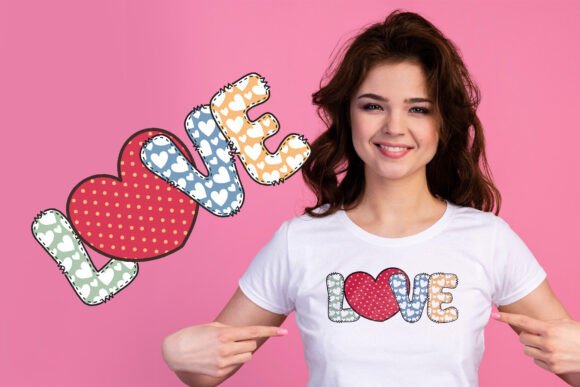
Fox Nice Font
Fox Nice is a delightful and playful font adorned with a charming heart pattern, perfect for adding a touch of sweetness to any project. Available in OTF, TTF, SVG, and PNG formats, this font offers four lovely pastel colors to suit all your creative needs. Whether you’re designing Valentine’s Day cards, wedding invitations, romantic quotes, Instagram posts, love letters, gift tags, or personalized stationery, Fox Nice helps you infuse every creation with love and warmth. As a bonus, this set includes 20 adorable Valentine-themed doodles in matching SVG and PNG formats, making it the perfect choice for spreading love in style.OpenType full-color (SVG) fonts are installed like any normal .otf font is installed. This usually happens via FontBook for Mac users or via your preferred font manager or Control Panel in Windows. Please note color fonts will show as black in non-compatible programs. You can use color fonts in PS since CC 2017, AI since CC 2018, ID since CC 2019,Inkscape, QuarkXPress since 2018, Pixelmator, Sketch, Affinity Designer Since macOS 10.14 Mojave, Paint.NET Windows only.🌸 Please note that the Canva do not support color fonts! 🌸